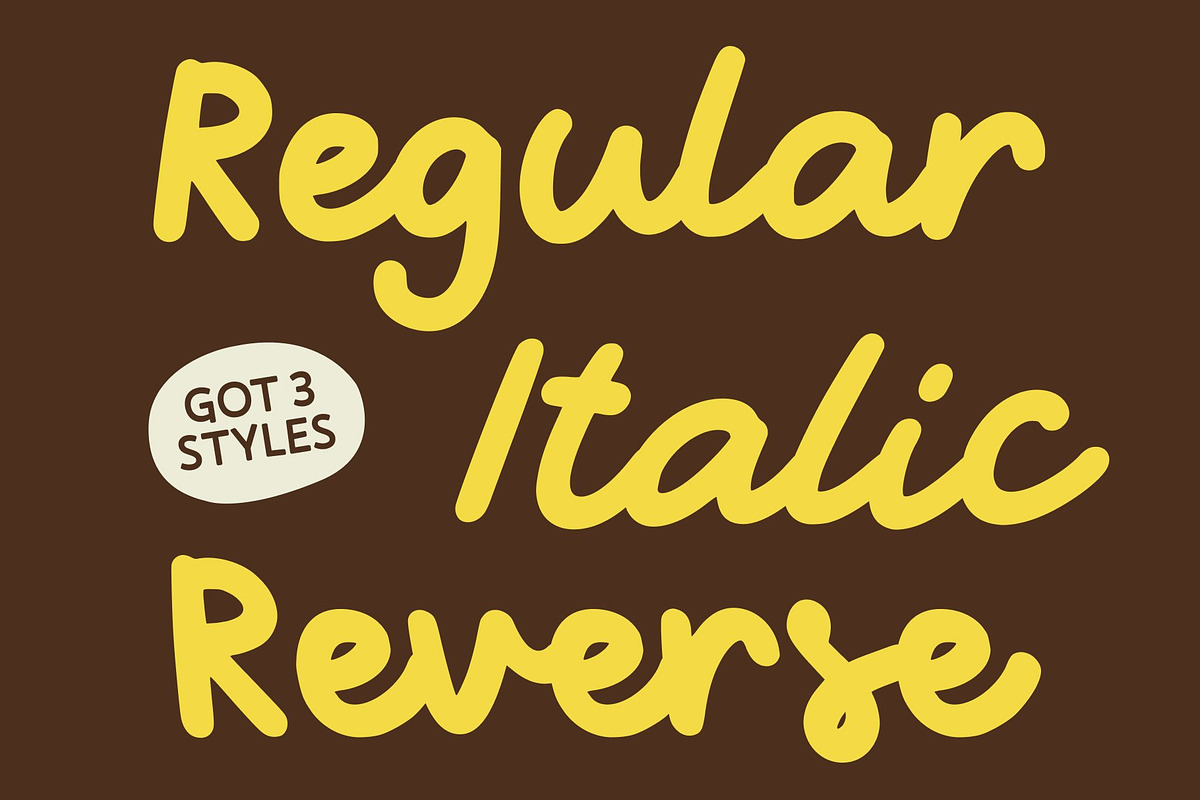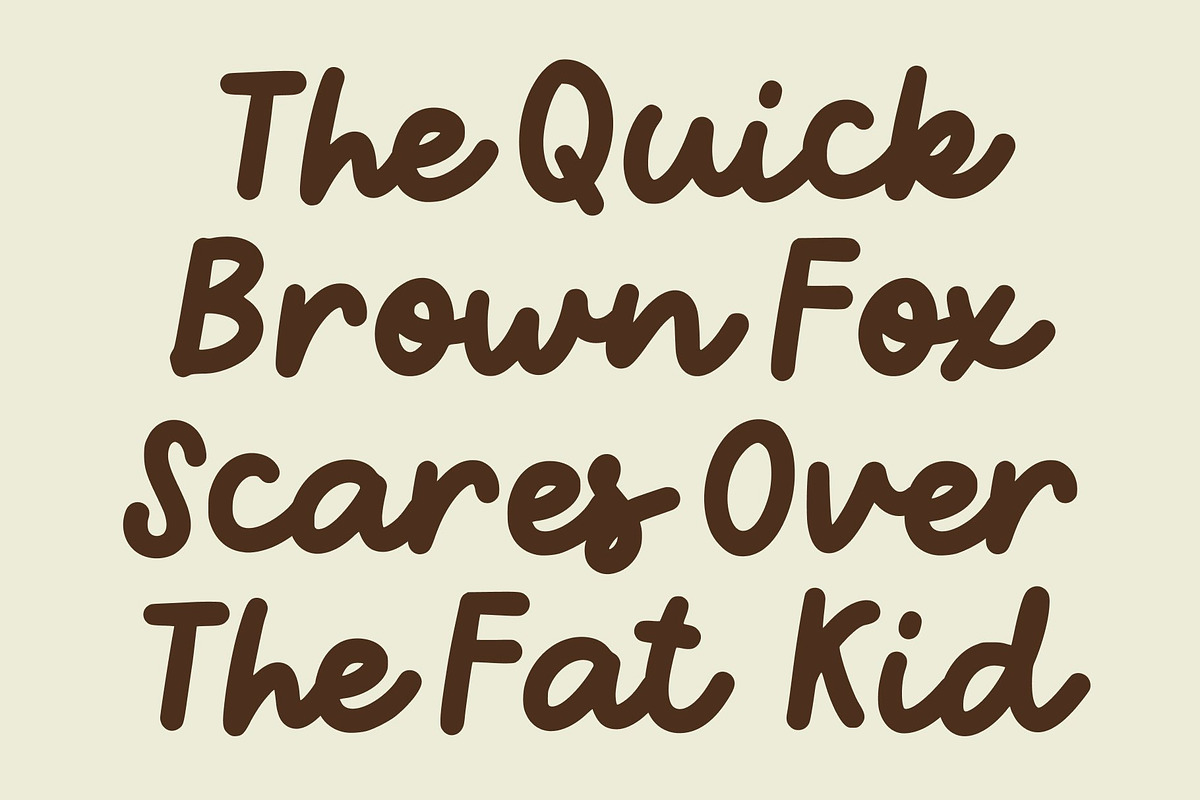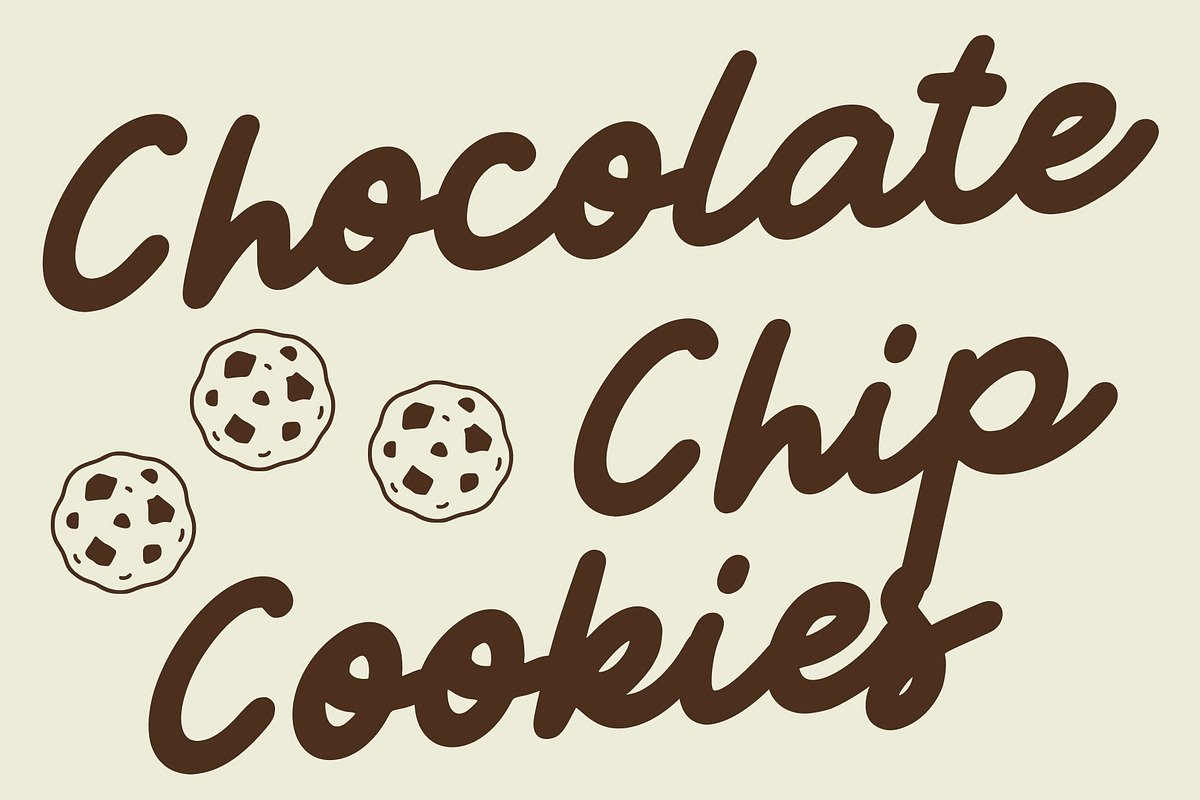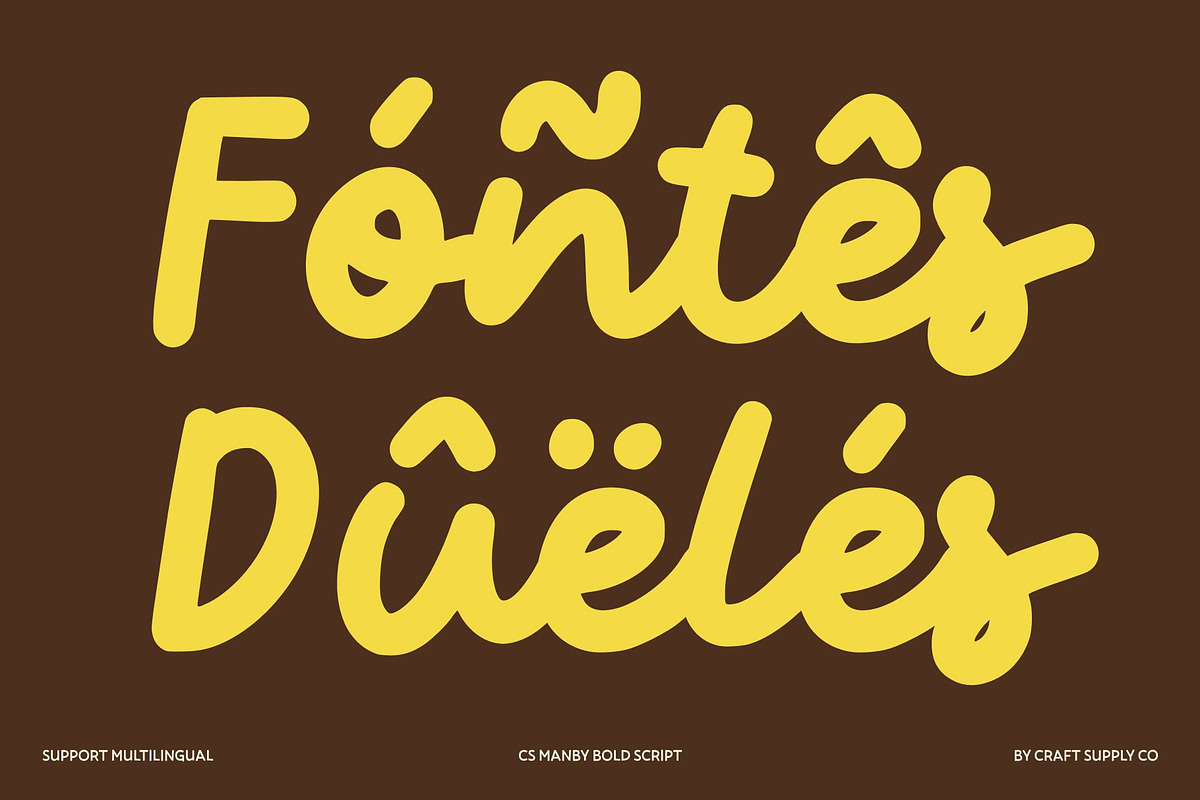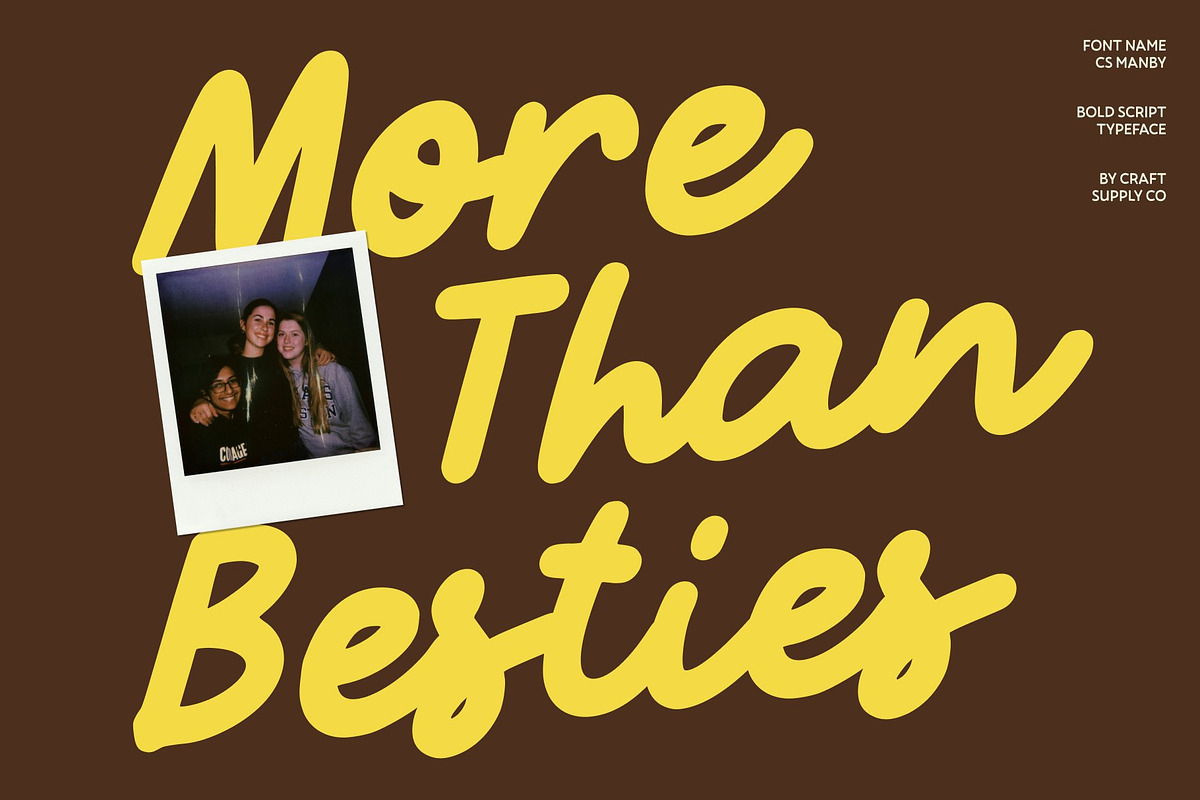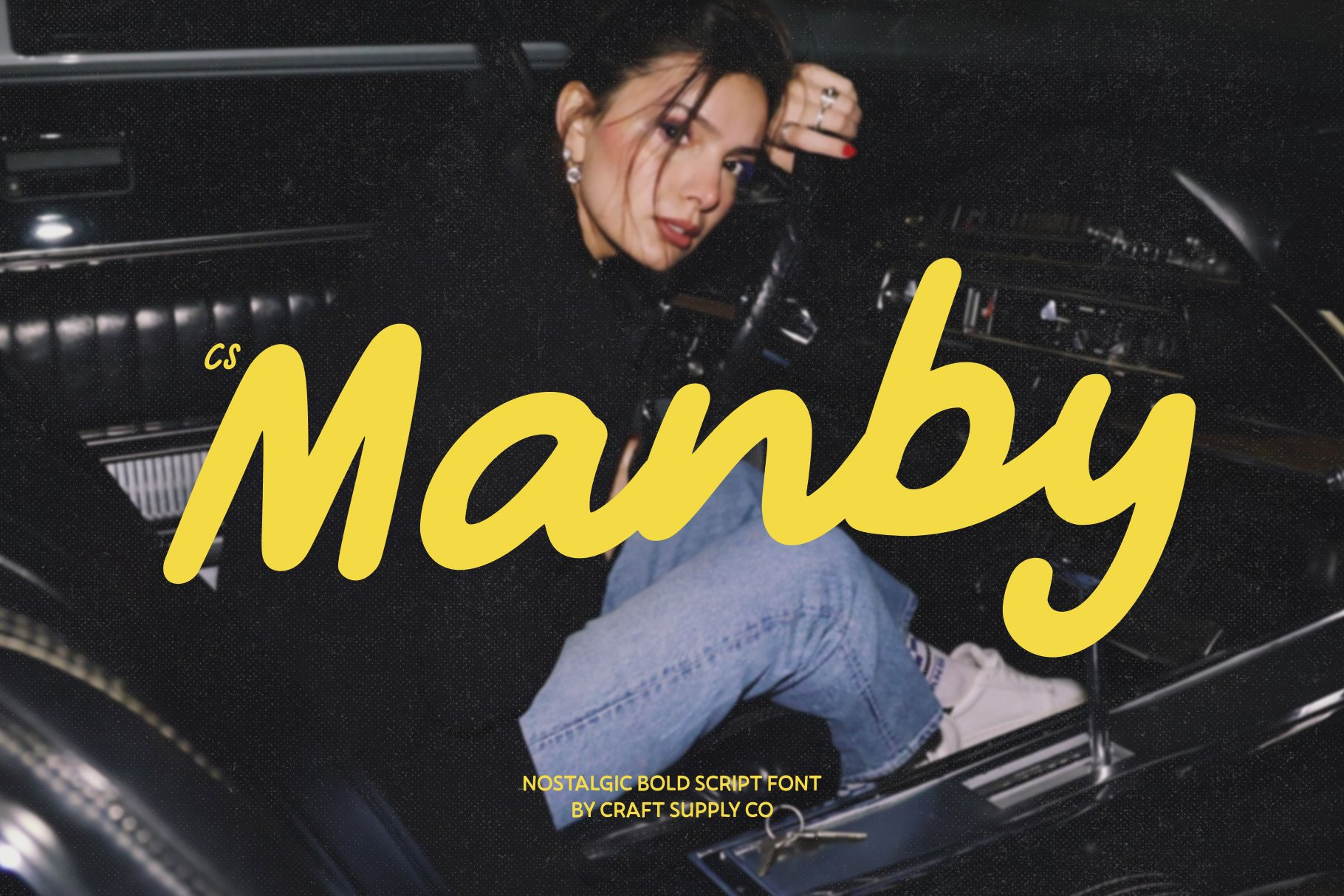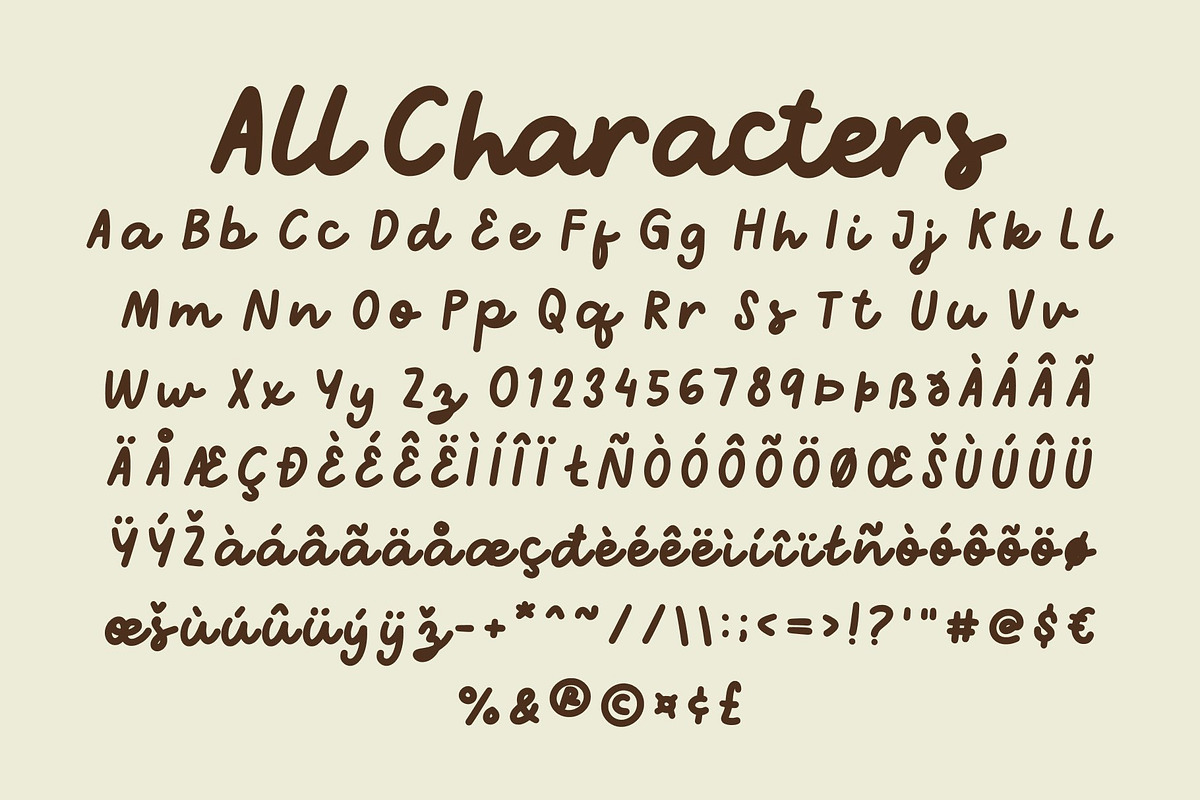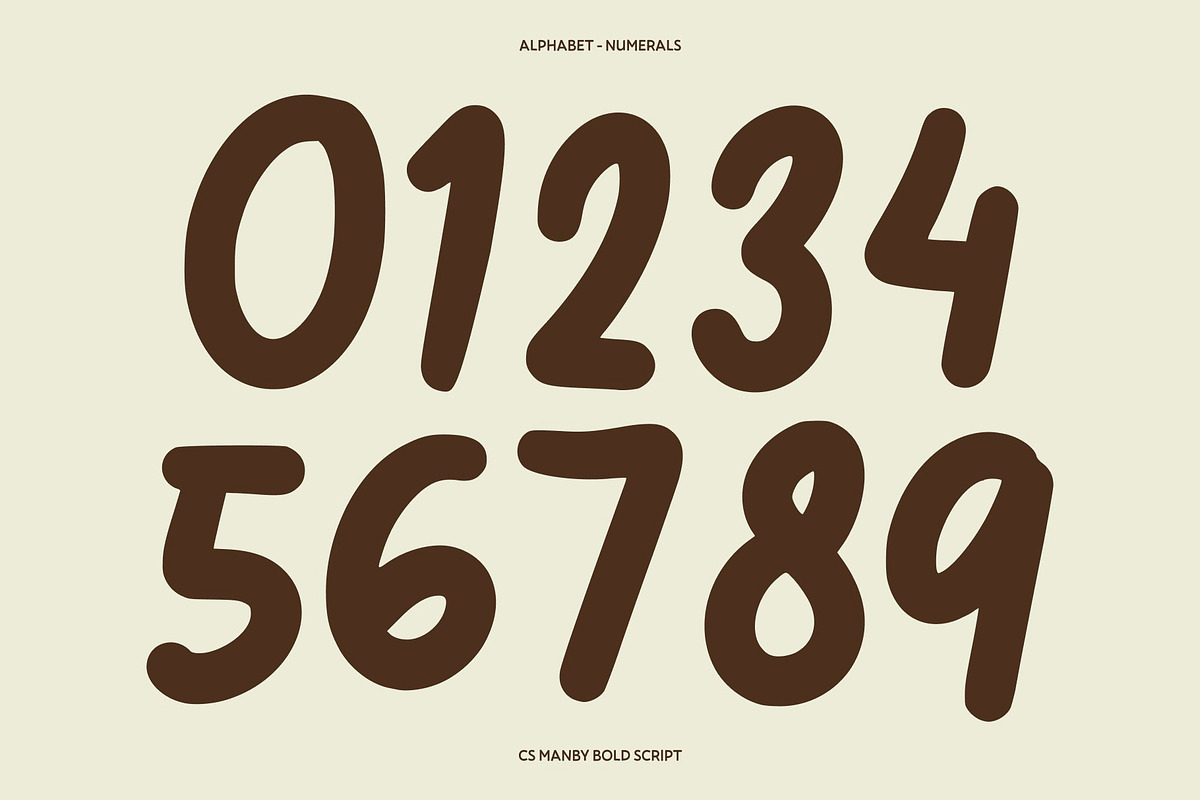
CS Manby - Vintage Bold Script Font
CS Manby is a nostalgic bold script that masterfully blends retro warmth with a crisp, modern freshness. Its design is defined by soft, inky edges evoking the tactile quality of hand-drawn lettering. Each character flows seamlessly into the next, creating a sense of smooth, rhythmic movement across the page.
This typeface is an ideal choice for high-impact visual identities where personality is paramount. The organic curves and weighted strokes make it particularly effective for food and beverage branding, as well as resort and hospitality projects.
For lifestyle and fashion brands, this font provides a sophisticated touch of vintage charm that feels current. It excels in product packaging and logo design, where a human touch can differentiate a brand from sterile, corporate alternatives. The bold presence ensures readability while maintaining an artisanal aesthetic.
Beyond print, this script is perfectly suited for social media content, adding a curated, editorial feel to digital layouts. Whether used for a primary brand mark or as a bold accent in a larger design system, this font brings a cohesive sense of style and fluidity to any creative project.
CS Manby Regular
CS Manby Italic
CS Manby Reverse Italic